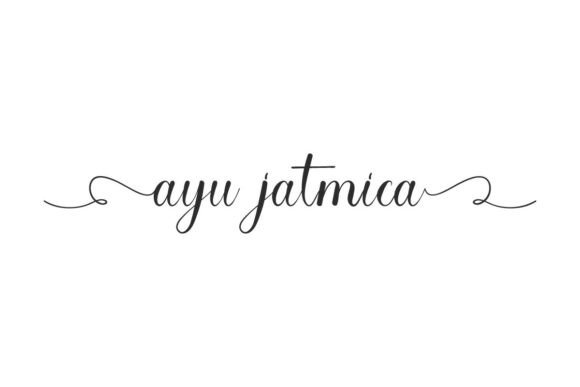
Ayu Jatmica Font: Elevate Your Designs with Elegance and Style
In the world of typography, fonts play a crucial role in conveying the tone and personality of a design. Among the numerous font styles available, calligraphy fonts have gained immense popularity for their elegance and sophistication. One such font that has caught the attention of designers and typography enthusiasts is the Ayu Jatmica Font. In this article, we’ll explore the features, benefits, and uses of this beautiful typography.
What is Ayu Jatmica Font?
Ayu Jatmica Font is a light, charming calligraphy font crafted in a modern style. Its elegant and refined appearance makes it an ideal choice for designers seeking to add a touch of sophistication to their work. This font is perfect for those who require elegance and style in their designs, making it a versatile typography for various applications.
Versatile Applications of Ayu Jatmica Font
Ayu Jatmica Font is a versatile typography that can be used in a wide range of design projects, including:
- Blogs: Add a touch of elegance to your blog titles, headings, and body text with Ayu Jatmica Font.
- Body Text: Use Ayu Jatmica Font as your primary body text font to create a cohesive and sophisticated reading experience.
- Greeting Cards: Create beautiful and heartfelt greeting cards for special occasions with Ayu Jatmica Font.
- Invitations: Design elegant and stylish invitations for weddings, parties, and other events using Ayu Jatmica Font.
- Label Tags: Add a personal touch to your label tags with Ayu Jatmica Font, perfect for product packaging and branding.
- Logos: Use Ayu Jatmica Font to create a unique and memorable logo for your brand.
- Packaging Products: Elevate your product packaging with Ayu Jatmica Font, adding a touch of sophistication and elegance.
- Quotes: Design inspirational and motivational quotes with Ayu Jatmica Font, perfect for social media and marketing materials.
- Stationery: Create beautiful and elegant stationery, including letterheads, envelopes, and notecards, with Ayu Jatmica Font.
- Save-the-Date Cards: Design stylish and elegant save-the-date cards for weddings and other events.
- Website Titles: Use Ayu Jatmica Font to create stunning website titles and headings, adding a touch of elegance to your online presence.
- Wrapping Paper: Design beautiful and unique wrapping paper with Ayu Jatmica Font, perfect for gift-giving and packaging.
- Feminine Branding: Ayu Jatmica Font is an excellent choice for feminine branding, adding a touch of elegance and sophistication to your brand’s visual identity.
Benefits of Using Ayu Jatmica Font
Ayu Jatmica Font offers several benefits to designers and typography enthusiasts, including:
- Elegance and Sophistication: Ayu Jatmica Font adds a touch of elegance and sophistication to any design project.
- Versatility: This font is versatile and can be used in various design applications, from blogs and body text to logos and packaging products.
- Modern Style: Ayu Jatmica Font features a modern style that appeals to contemporary design sensibilities.
- Light and Charming: This font is light and charming, making it perfect for designs that require a touch of whimsy and playfulness.
Tips for Using Ayu Jatmica Font
To get the most out of Ayu Jatmica Font, here are some tips to keep in mind:
- Pair with Other Fonts: Experiment with pairing Ayu Jatmica Font with other fonts to create a unique and visually appealing typography.
- Use in Headings and Titles: Use Ayu Jatmica Font in headings and titles to add a touch of elegance and sophistication to your design.
- Adjust Font Size: Adjust the font size to suit your design needs, using larger font sizes for headings and smaller font sizes for body text.
- Experiment with Colors: Experiment with different colors to find the perfect match for your design, using Ayu Jatmica Font in a range of colors to add visual interest.
Ayu Jatmica Font is a beautiful and elegant calligraphy font that offers a range of design possibilities. Its versatility, modern style, and charming appearance make it an excellent choice for designers seeking to add a touch of sophistication to their work. Whether you’re designing a blog, logo, or packaging product, Ayu Jatmica Font is an excellent choice for elevating your designs with elegance and style.